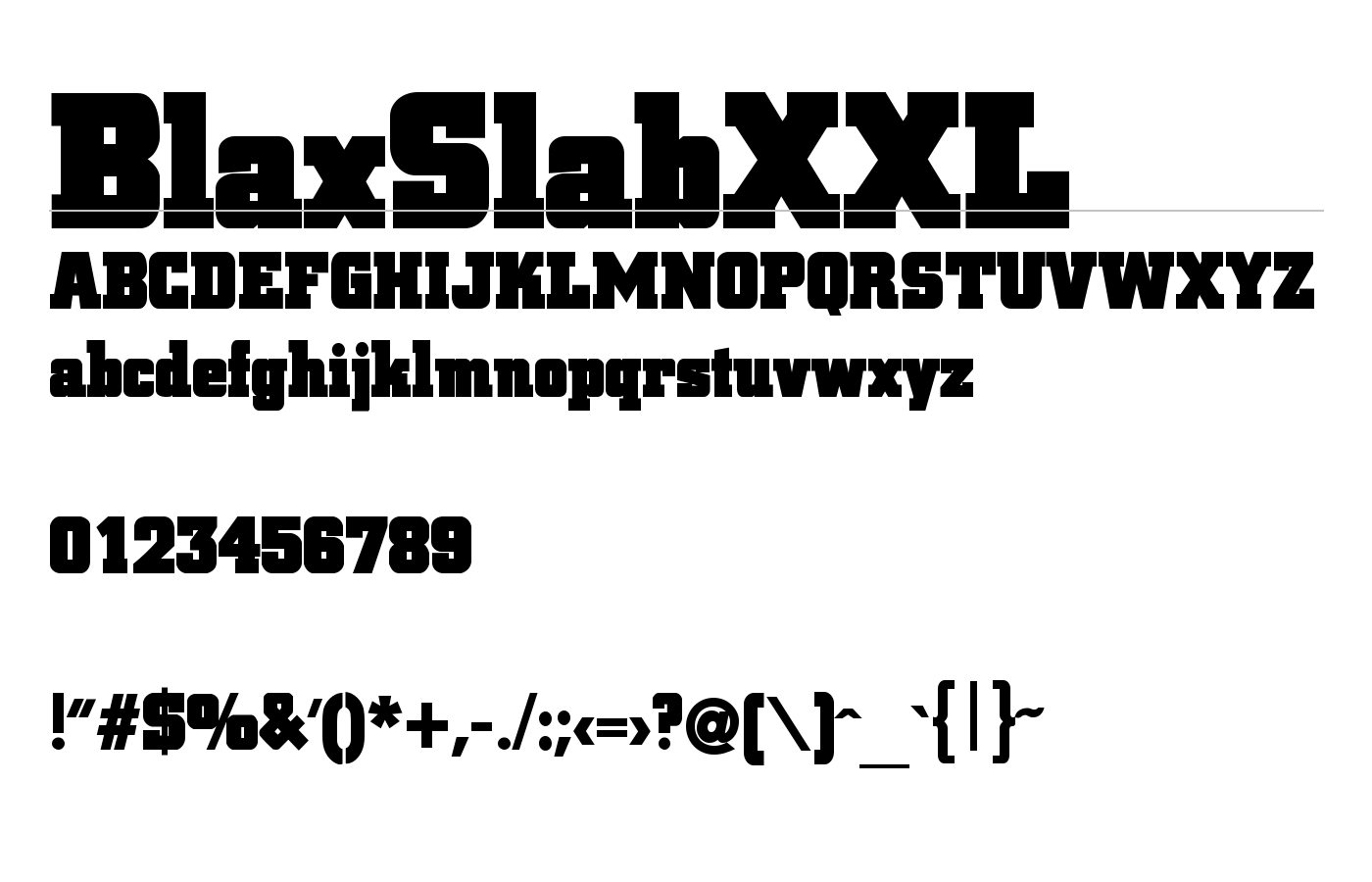
BlaxSlabXXL is a bold, slab serif font characterized by heavy, blocky letterforms with thick, unbracketed serifs and a strong presence. Its substantial weight and condensed width give it an impactful, sturdy feel perfect for headlines, posters, and branding that demands attention. This font exudes a rugged yet confident personality, making it ideal for designs that want to convey strength and authority with a modern vintage touch.
BlaxSlabXXL Font
About BlaxSlabXXL Font